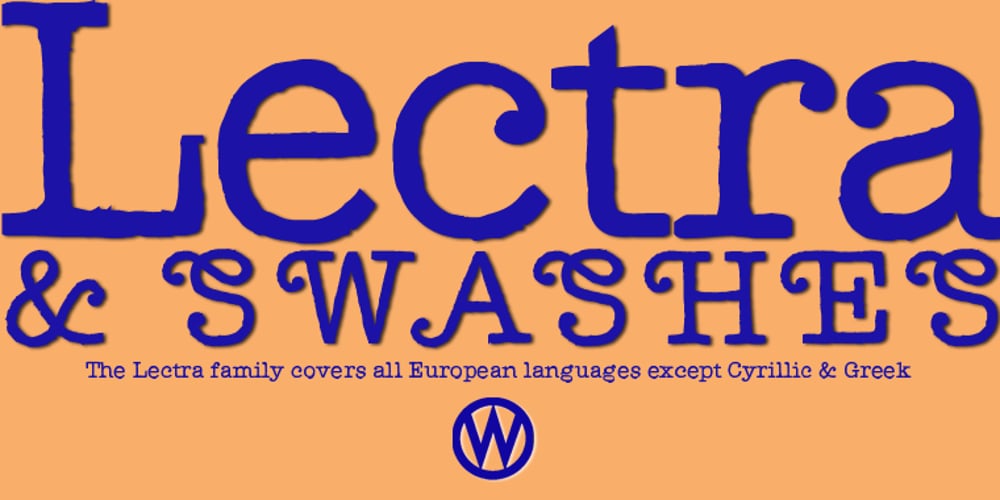
Lectra Font Family was designed by Gert Wiescher and published by Wiescher Design. Lectra contains 20 styles and family package options. Lectra is a typical typewriter-family with 5 normal cuts and 5 – not so typical for typewriter-fonts – swashes.